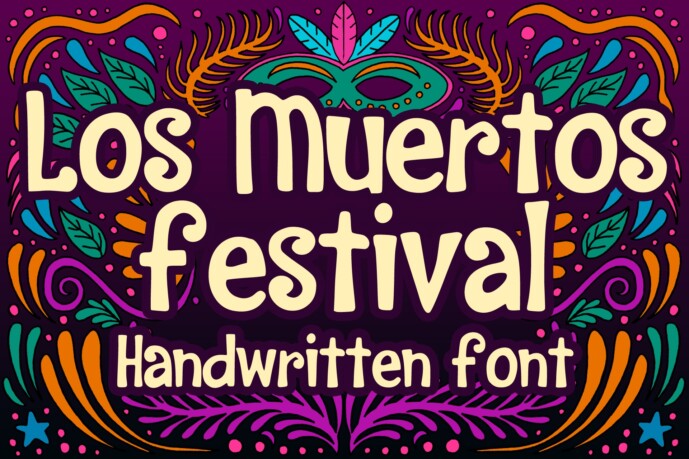
Los Muertos Festival Font
Designer: MVMET
Los Muertos Festival is an playful and festive handdrawn font. It will be perfect for your horror and Halloween-themed needs! You can use it for anything ranging from merchandise like t-shirts and clothing, for your scary book designs, Halloween party needs, greeting cards, stickers, posters, banners, or anything that needs a festive horror or magical touch.